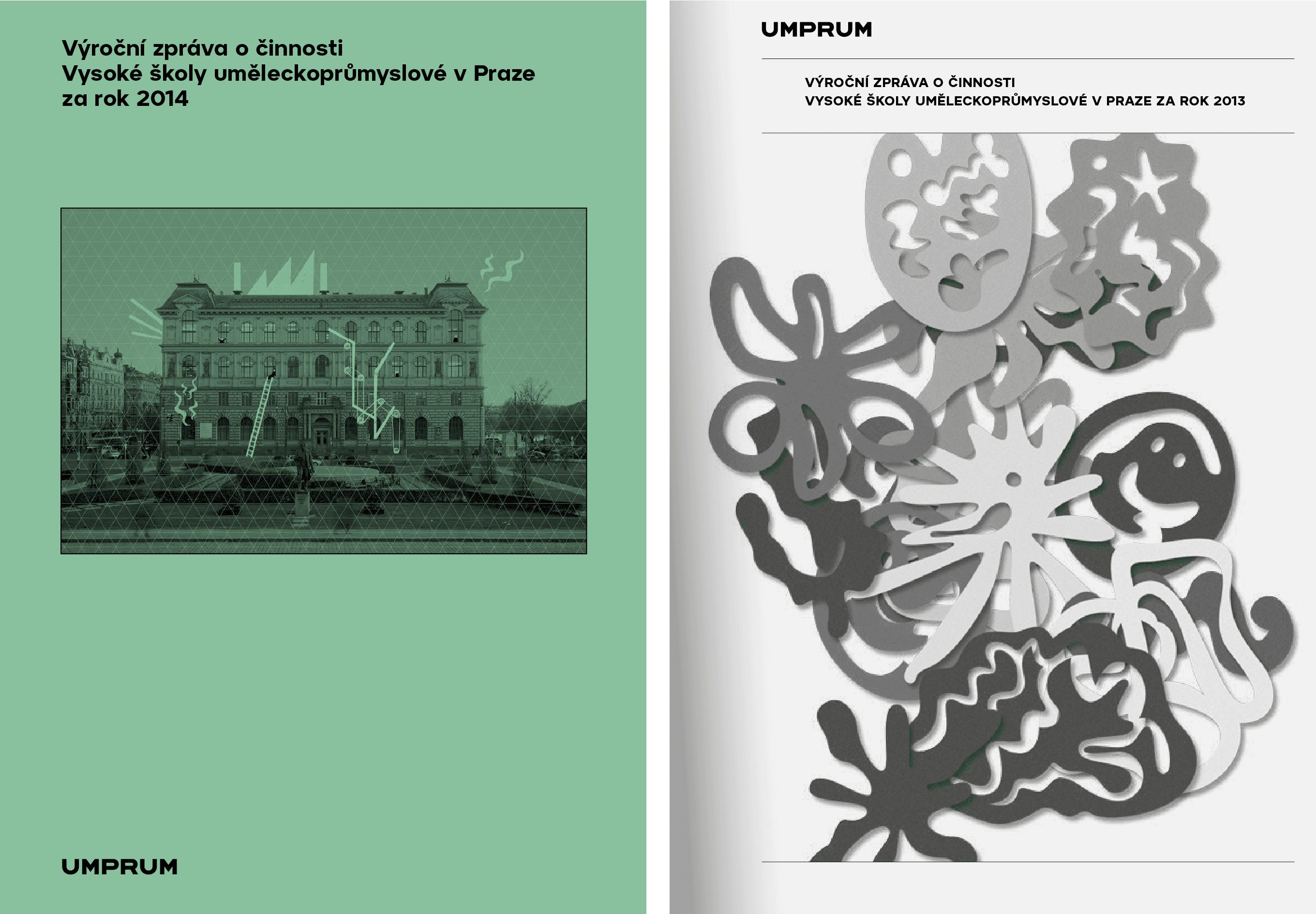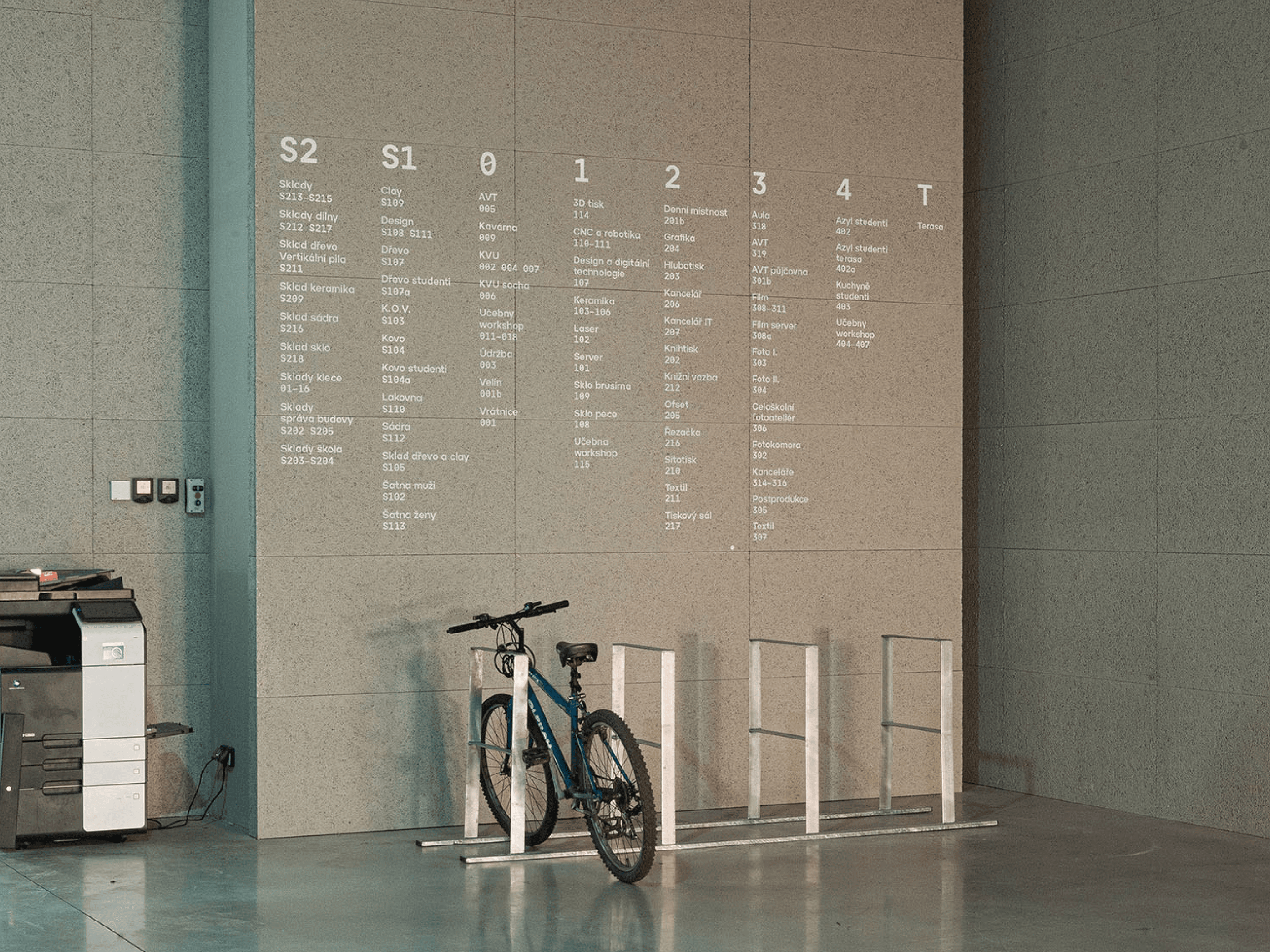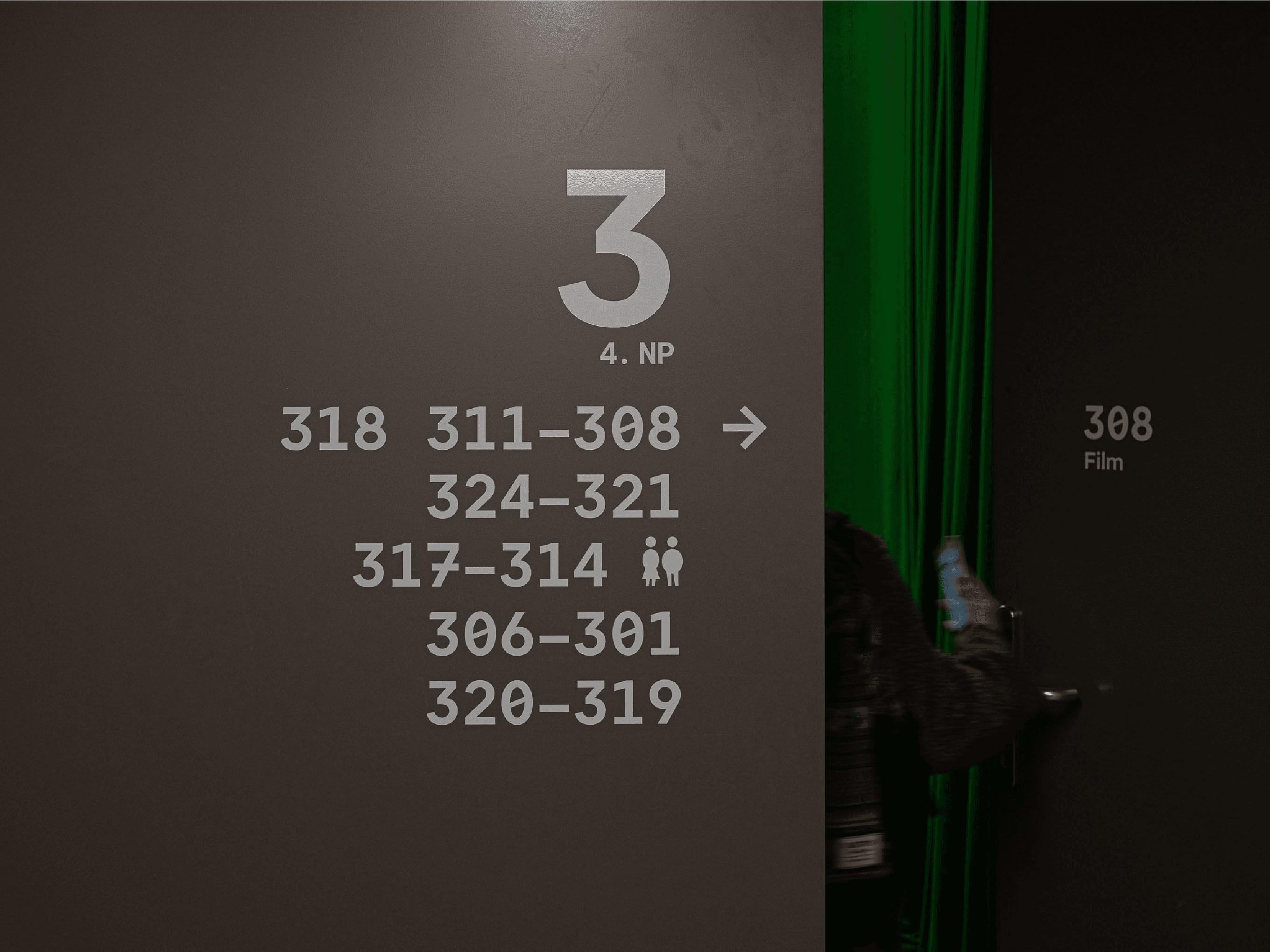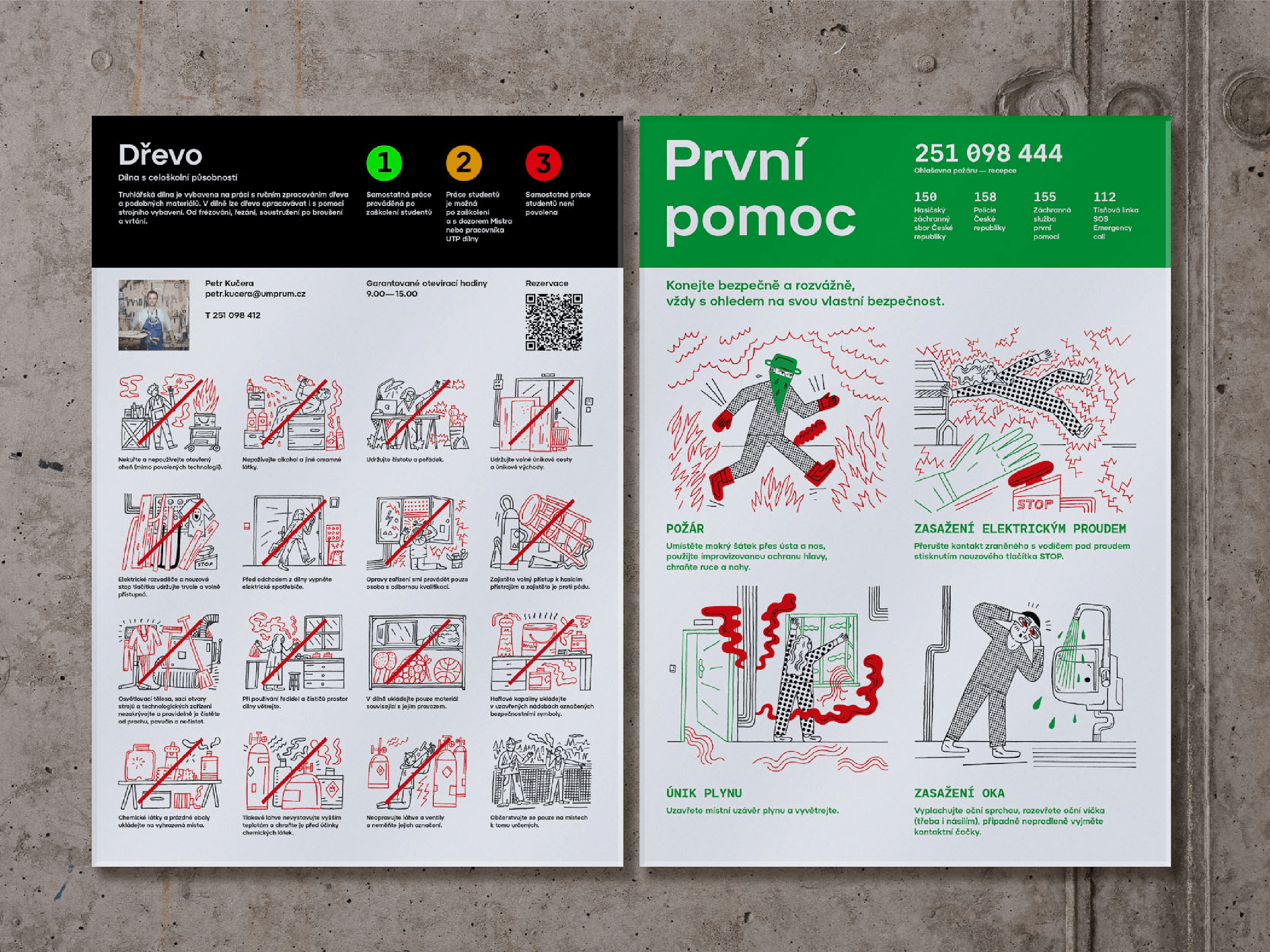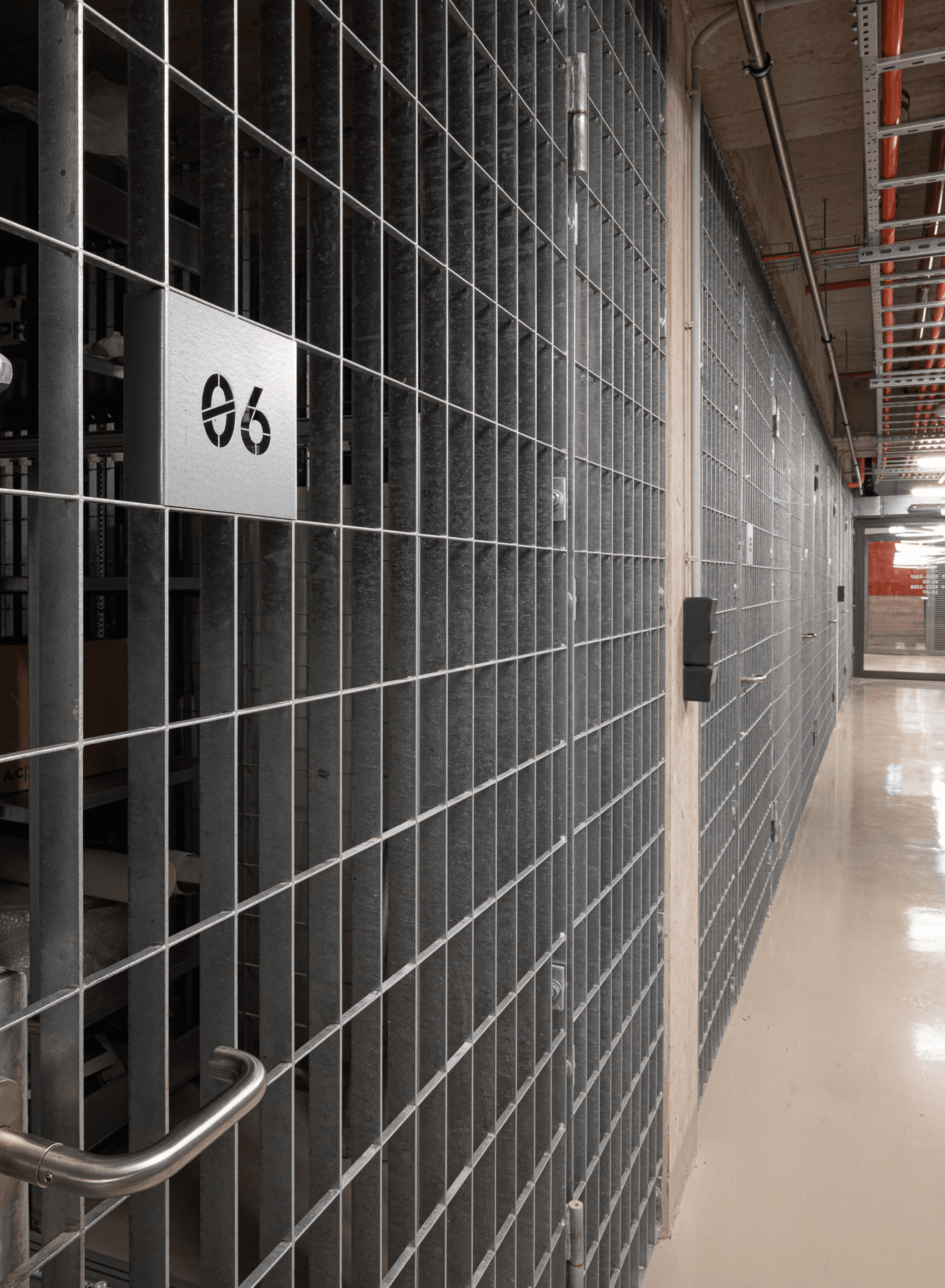
Umprum
The visual identity of the Academy of Arts, Architecture and Design in Prague is based solely on its distinctive color palette and a characteristic, almost neutral typeface, allowing it to coexist with a vast range of artistic outputs without competing for attention.
For the new technology building, an identical family of styles was developed in a monospaced variant. This adaptation more effectively reflects the building’s function and technical focus, particularly its workshops and production facilities.
The wayfinding and information system for the technology center, designed by superlative.works, employs a wide range of production technologies, including cut vinyl graphics, UV printing, digital printing, and metal-cut signage. To support these applications, a dedicated stencil style was also developed.